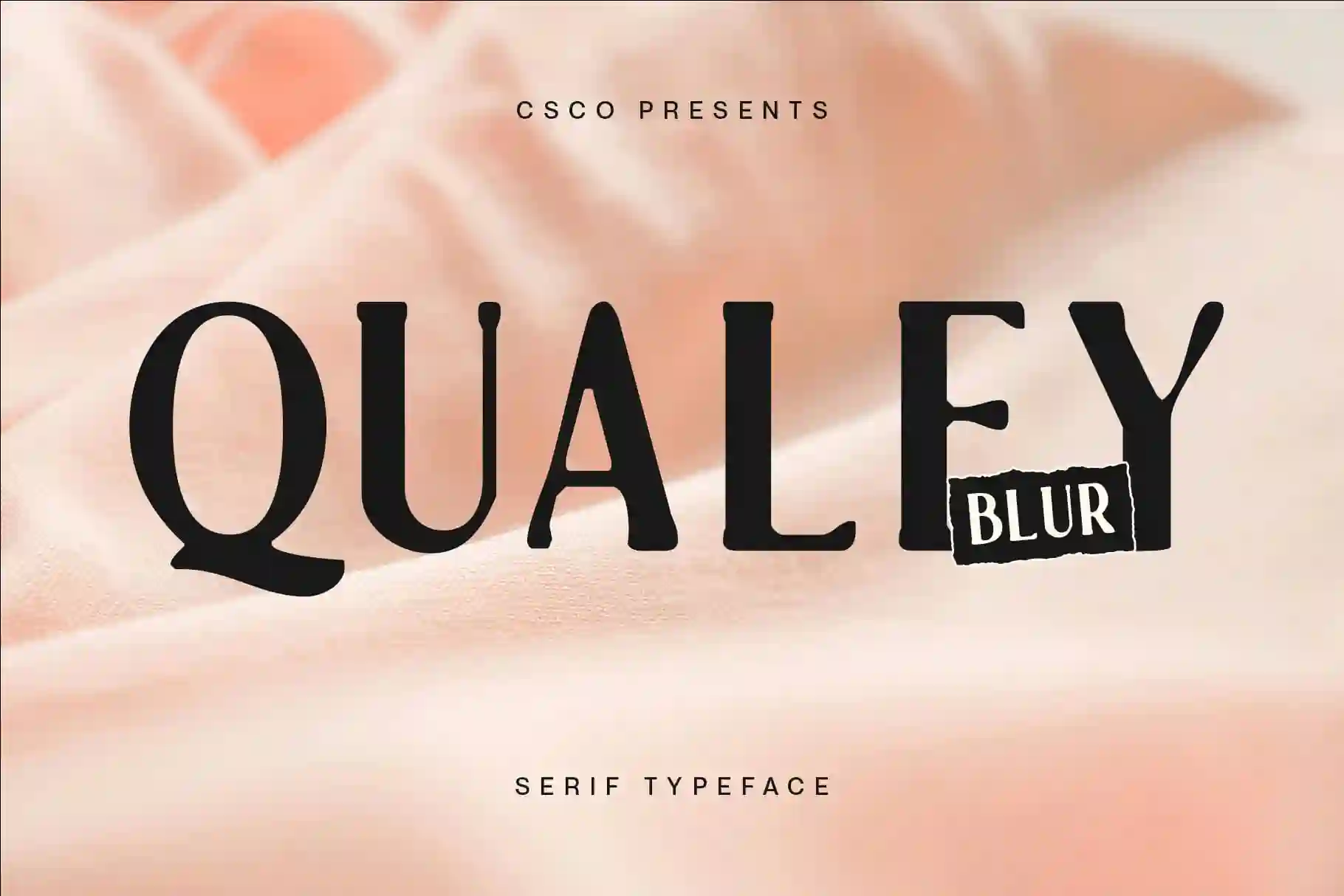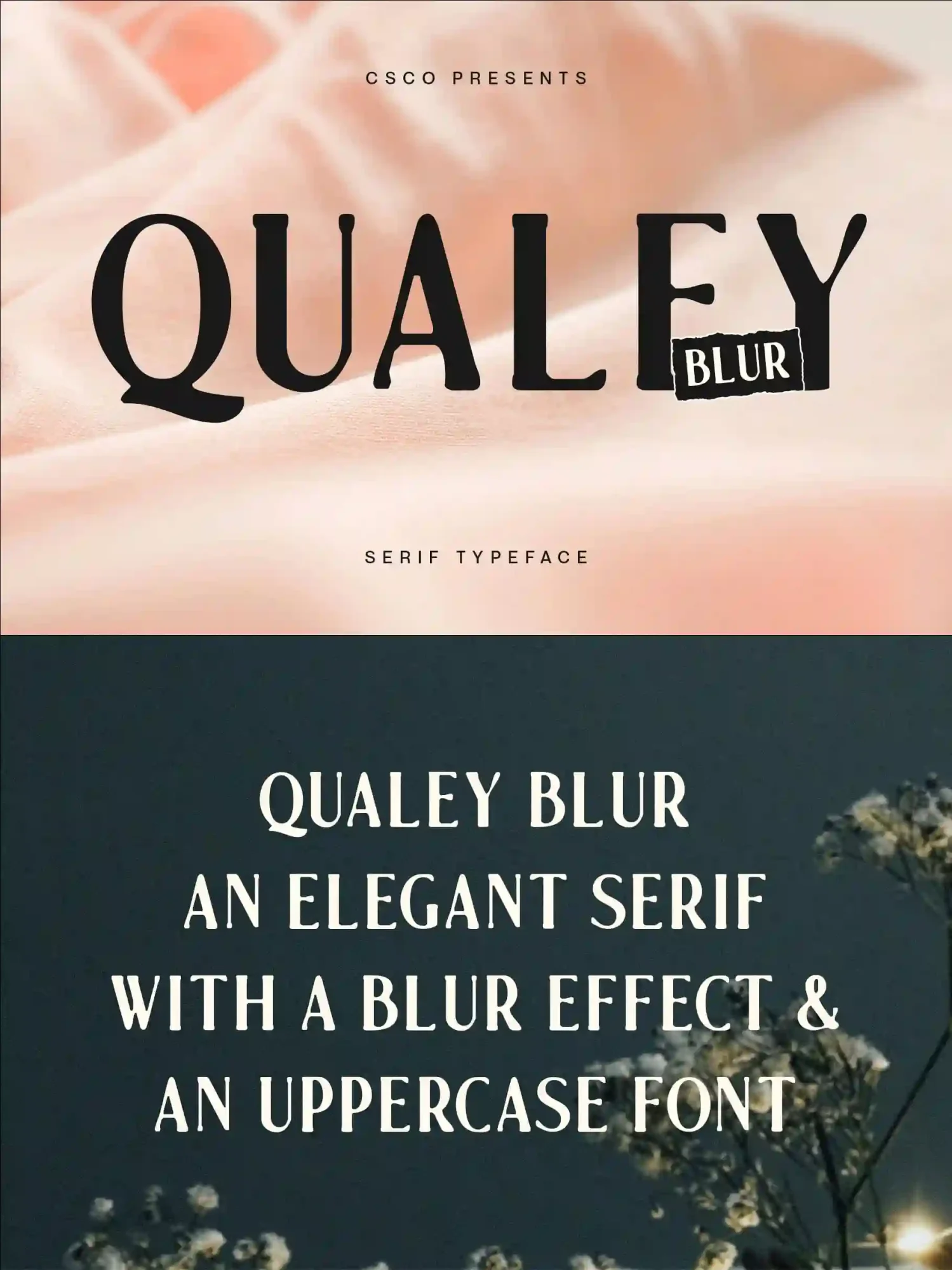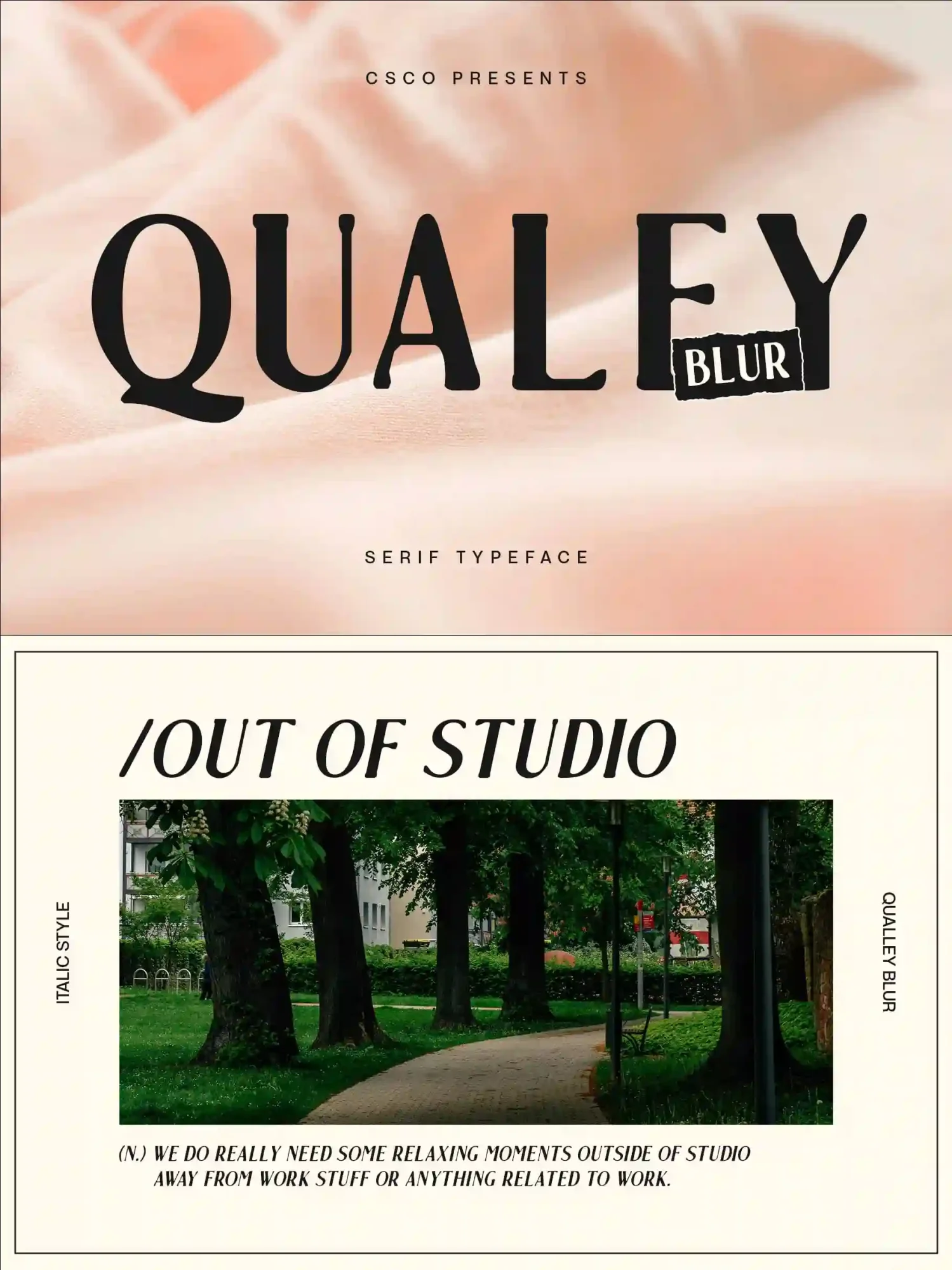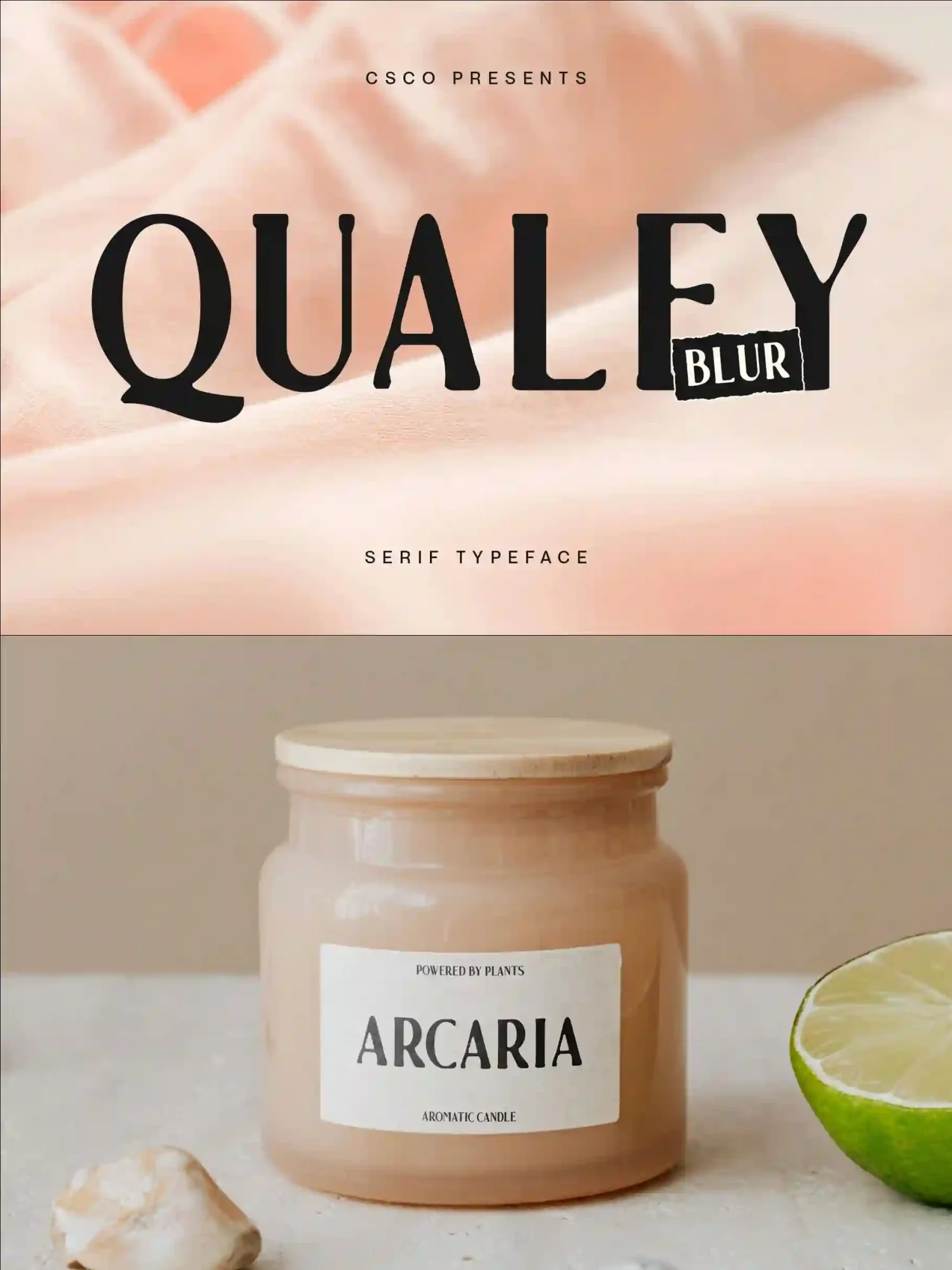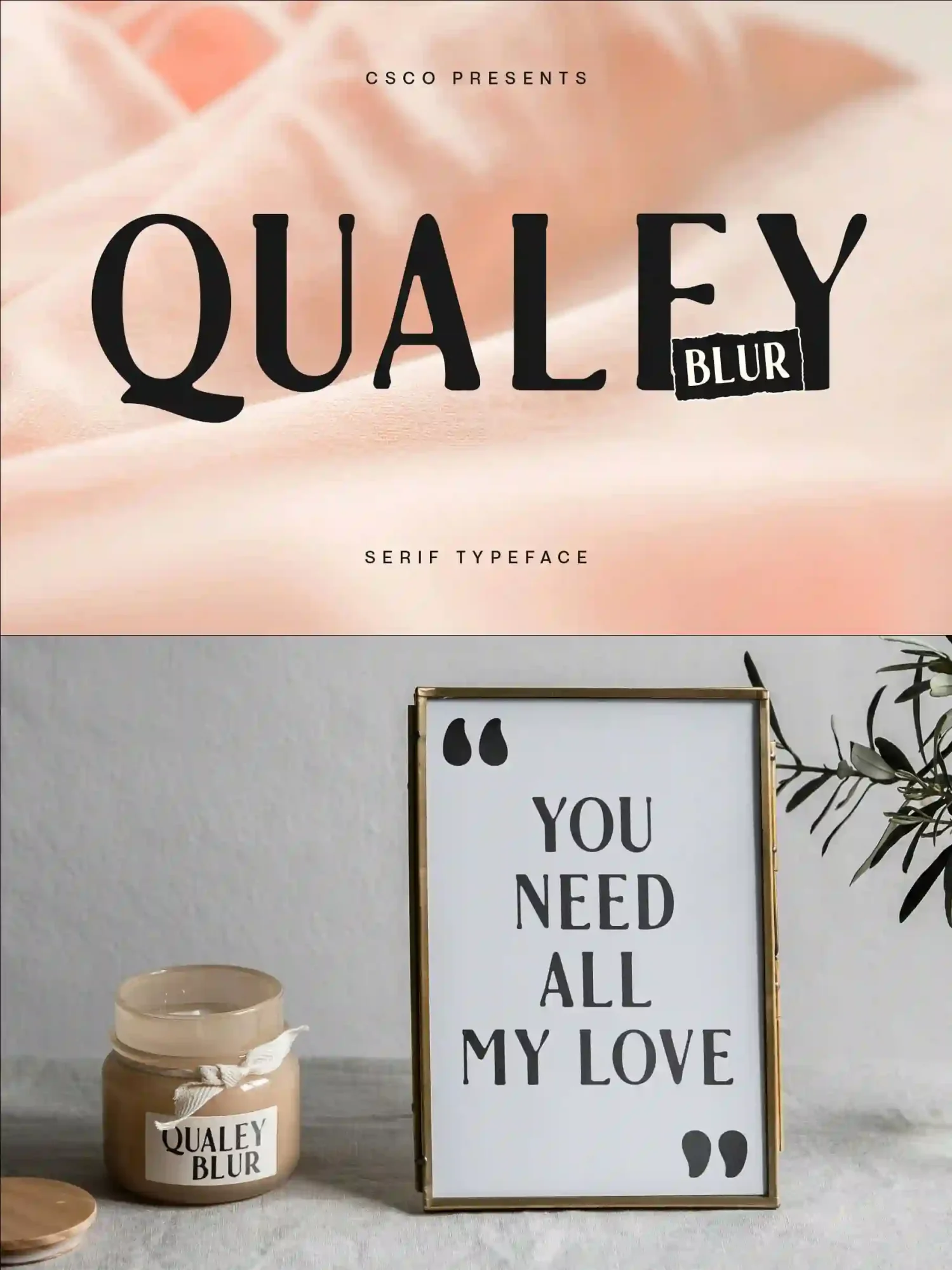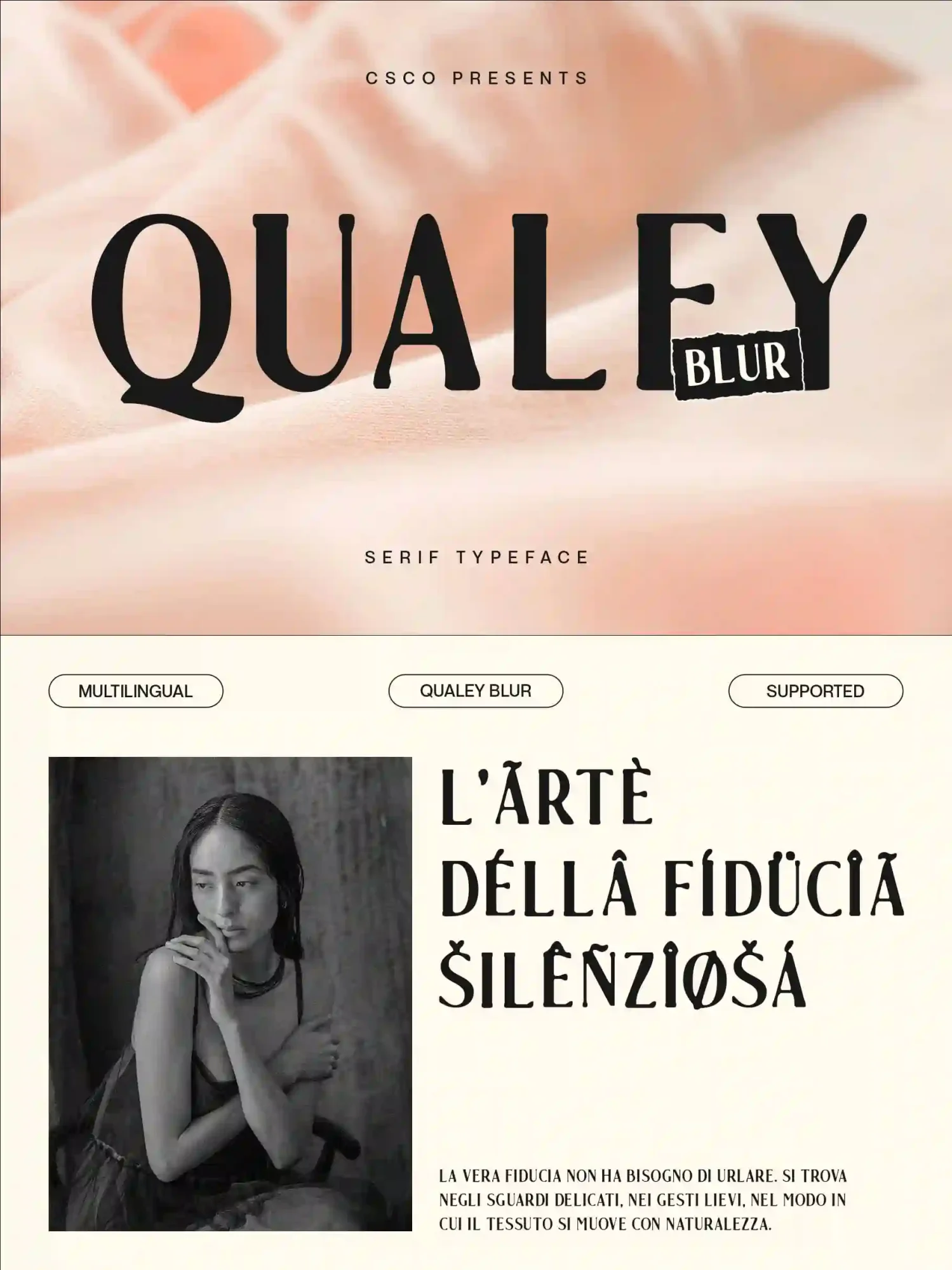
Qualey Blur
Qualey Blur Font – Modern Serif Font with a Soft Blur Effect
Elegant, Contemporary, and Visually Unique
Qualey Blur is a modern serif font that blends clean lines and refined serifs with a subtle blur effect, creating a beautifully soft and dreamlike appearance. Its sharp, minimalist structure maintains a classic sophistication, while the hazy edges introduce a creative twist that feels both modern and artistic.
Aesthetic Balance of Clarity and Softness
This font strikes a unique balance—where crisp, elegant forms meet a gentle, atmospheric blur, resulting in a look that’s both graceful and expressive. The contrast between sharp details and diffused edges evokes a feeling of calm sophistication and visual intrigue, making it stand out in refined yet experimental design contexts.